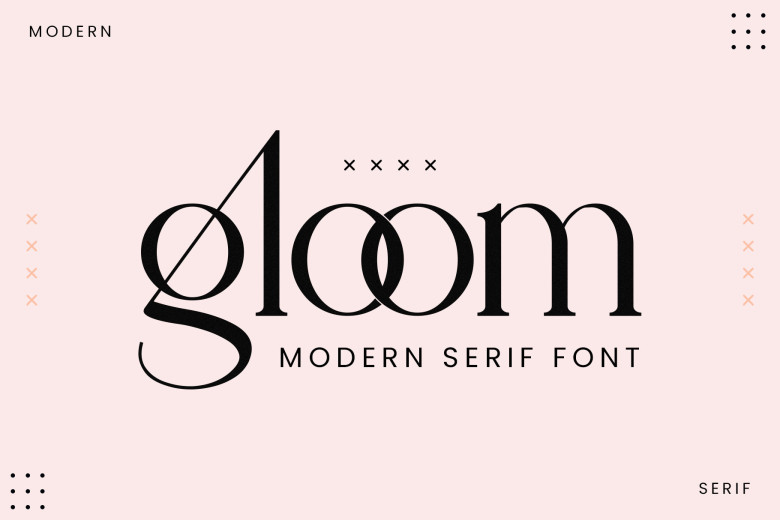
Gloom Font
For many people, Gloom Serif is an elegant and balanced ‘serif’ font. He has a beautiful character. For invitation card designs, company logos, or movie titles. Gloom Serif is also a very subtle font which embodies sophisticated elegance. Writing materials all seem more stylish and refined. Every project becomes even better when using this font with its fashionable alternates and ligatures.
Gloom Serif Font